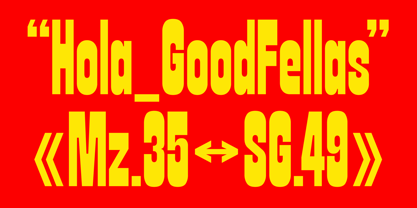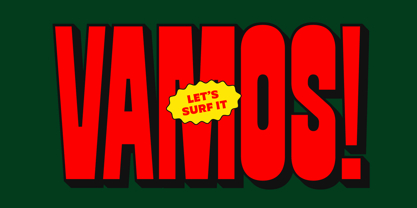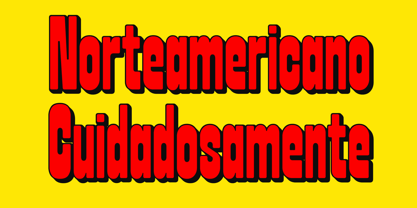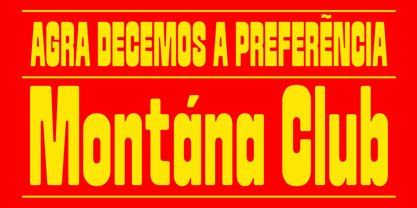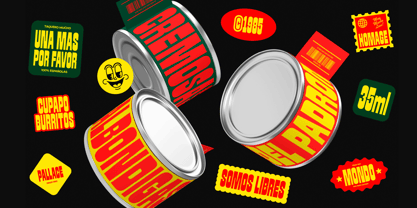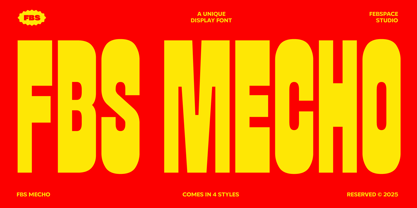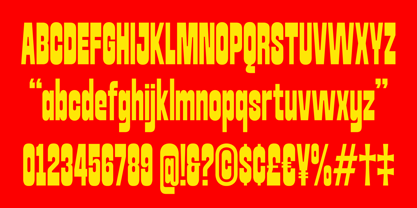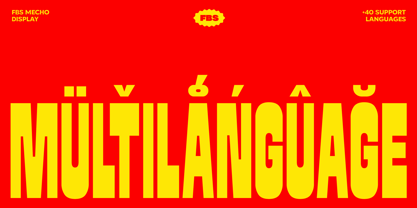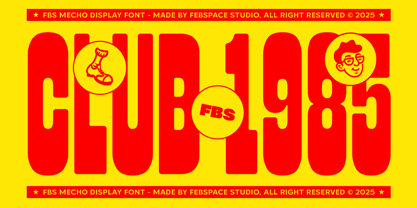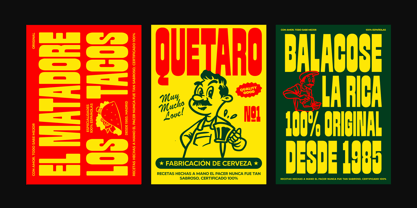
FBS Mecho
The FBS Mecho Font Family was designed by Febri Riansah and published by Febspace Studio. FBS Mecho contains 4 styles and family package options. More about this family
Say hello to FBS Nacho — a chunky, bold display typeface with a whole lot of attitude! Designed for impact, this font comes in four flavorful styles: Regular, Soft Round, Regular Shadow and Soft Shadow. Whether you’re crafting posters, merch, or anything that needs to pop, FBS Nacho brings the bold with a minimalist twist. From clean cuts to playful curvesand cool shadows, this font’s got the toppings you need to spice up your design.
Designers: Febri Riansah
Foundry: Febspace Studio